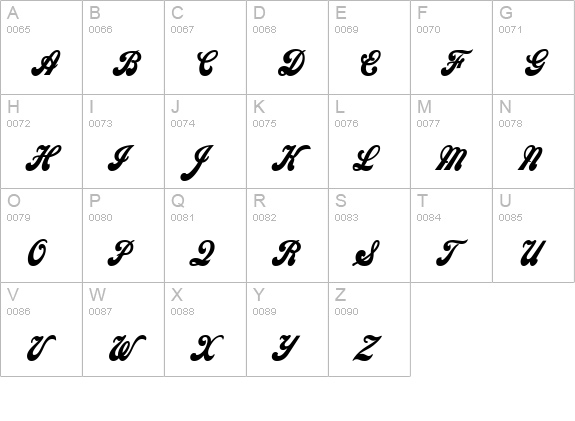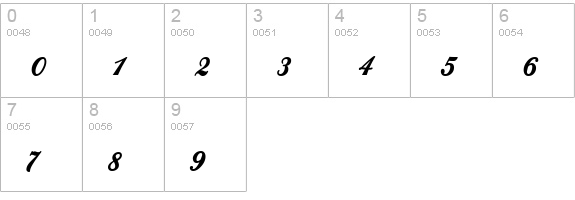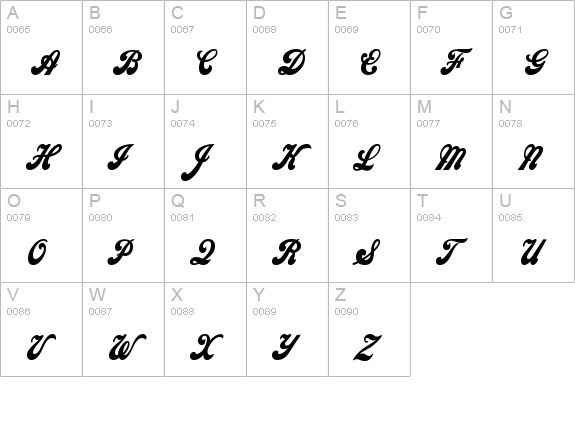
Sweden Condensed Bold is a strong, high-contrast, condensed-width variant in the Sweden typeface family \xE2\x80\x94 well suited to headlines, attention-grabbing titles, and strong calls-to-action.
Introducing Sweden Condensed Bold font, a sleek and modern typeface that exudes confidence and sophistication. This versatile font is perfect for a wide range of design projects, from branding and advertising to web design and packaging. With its clean lines and bold strokes, Sweden Condensed Bold demands attention and makes a bold statement. And the best part? Sweden Condensed Bold is available for free download at FontsMarket.com. Now you can elevate your designs with this striking font without breaking the bank. Don't miss out on this opportunity to add Sweden Condensed Bold to your font collection and take your projects to the next level. Download it today and let your creativity soar!